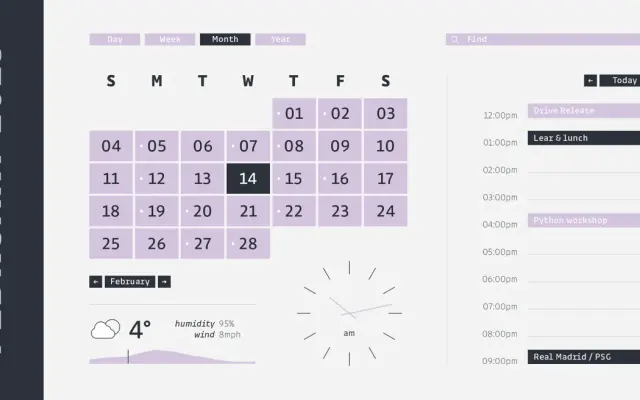
A humanist sans superfamily designed for business communication, offering three coordinated styles — proportional, monospaced and proportional-compact — across nine weights with variable font support.
Drive groups three coordinated styles into a single superfamily: Drive for general use, Drive Mono for tabular and code-adjacent settings, and Drive Prop for maximum content density. Open counterforms and near-monolinear strokes keep text readable at small sizes and in adverse conditions. Nine weights from Hairline to Extrabold, each with italics, are available as static or variable fonts for print and digital work.
Described explicitly as a humanist sans serif with open counterforms and nearly monolinear strokes, prioritising legibility and efficiency in business communication contexts.